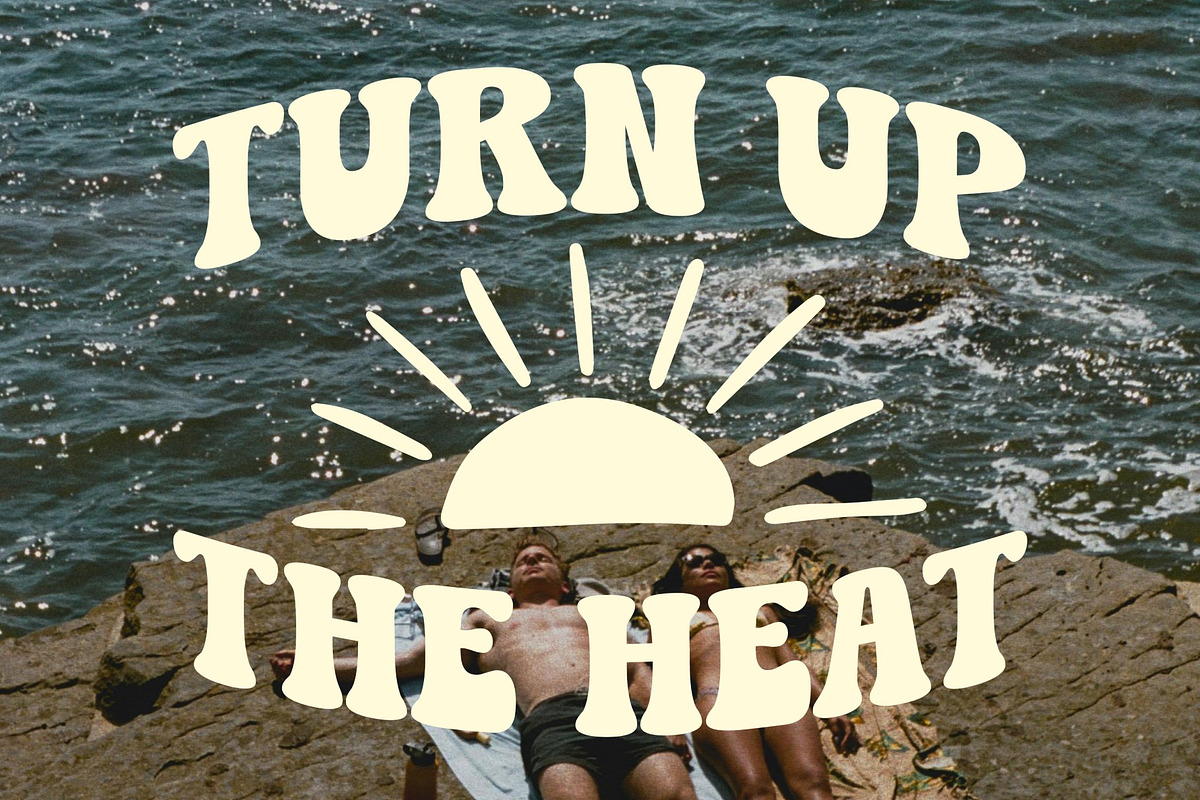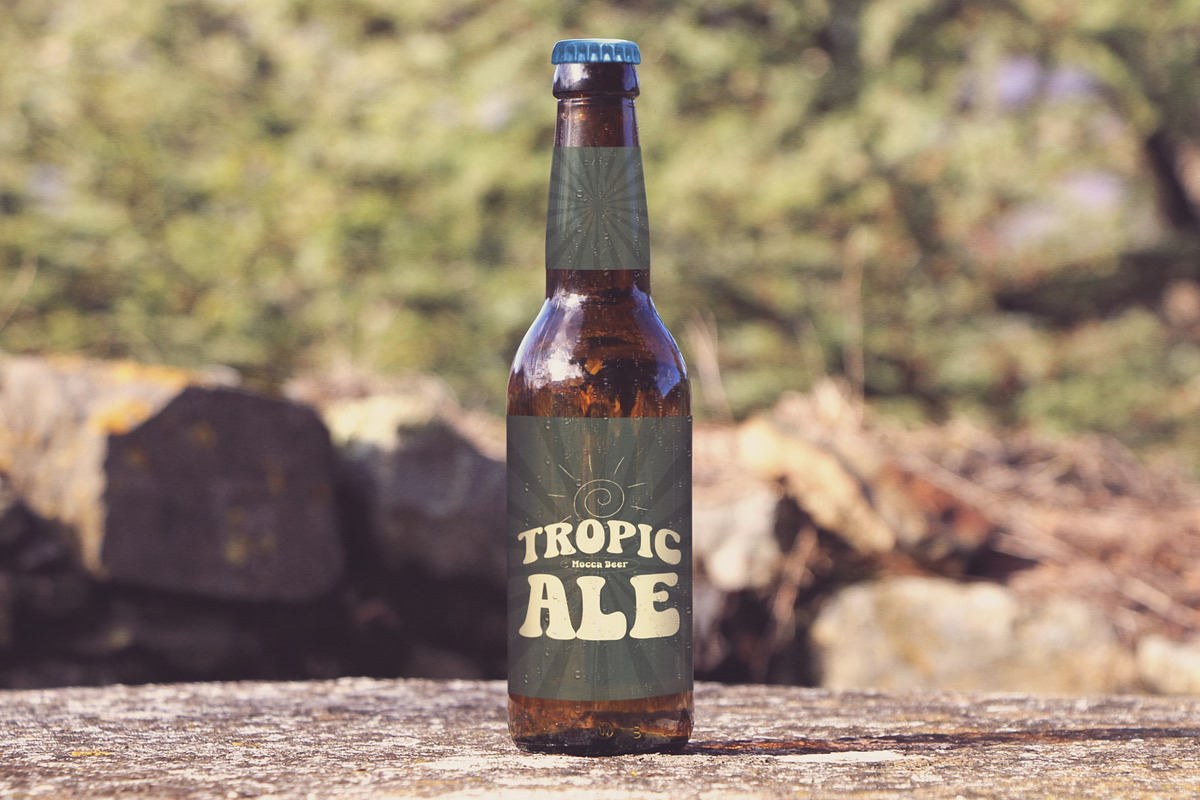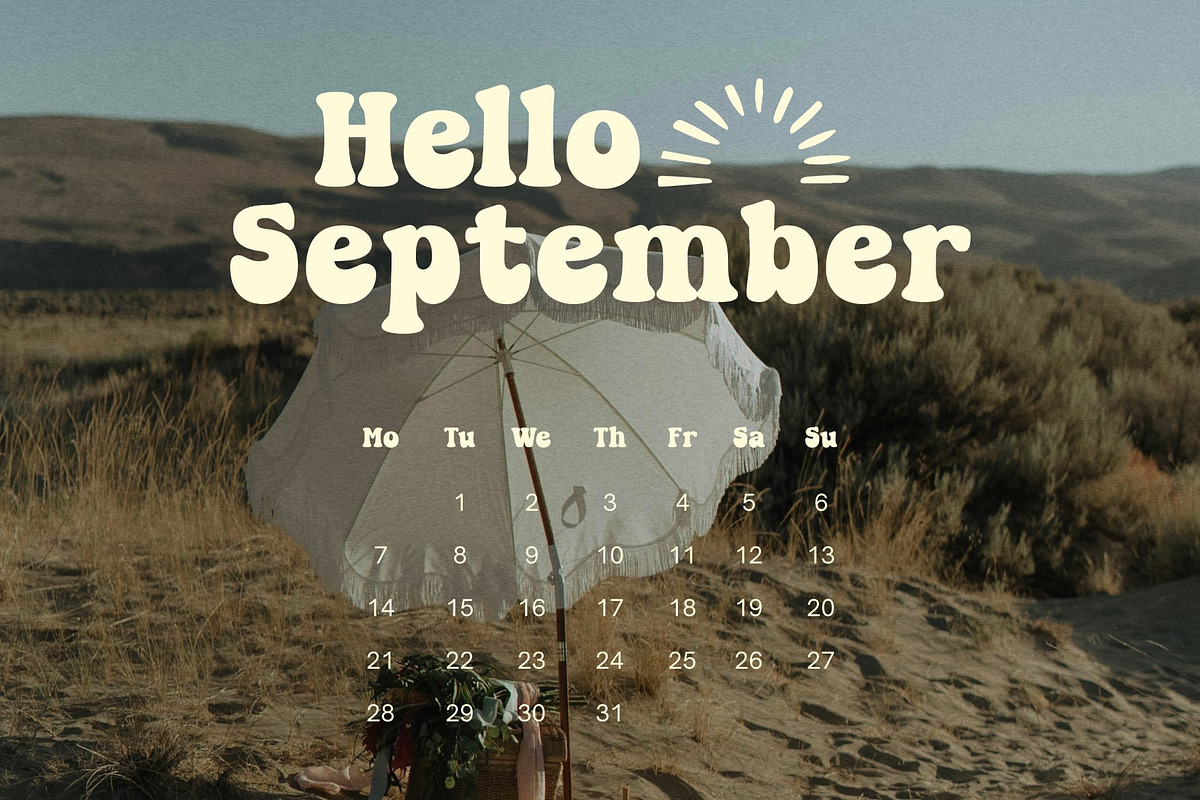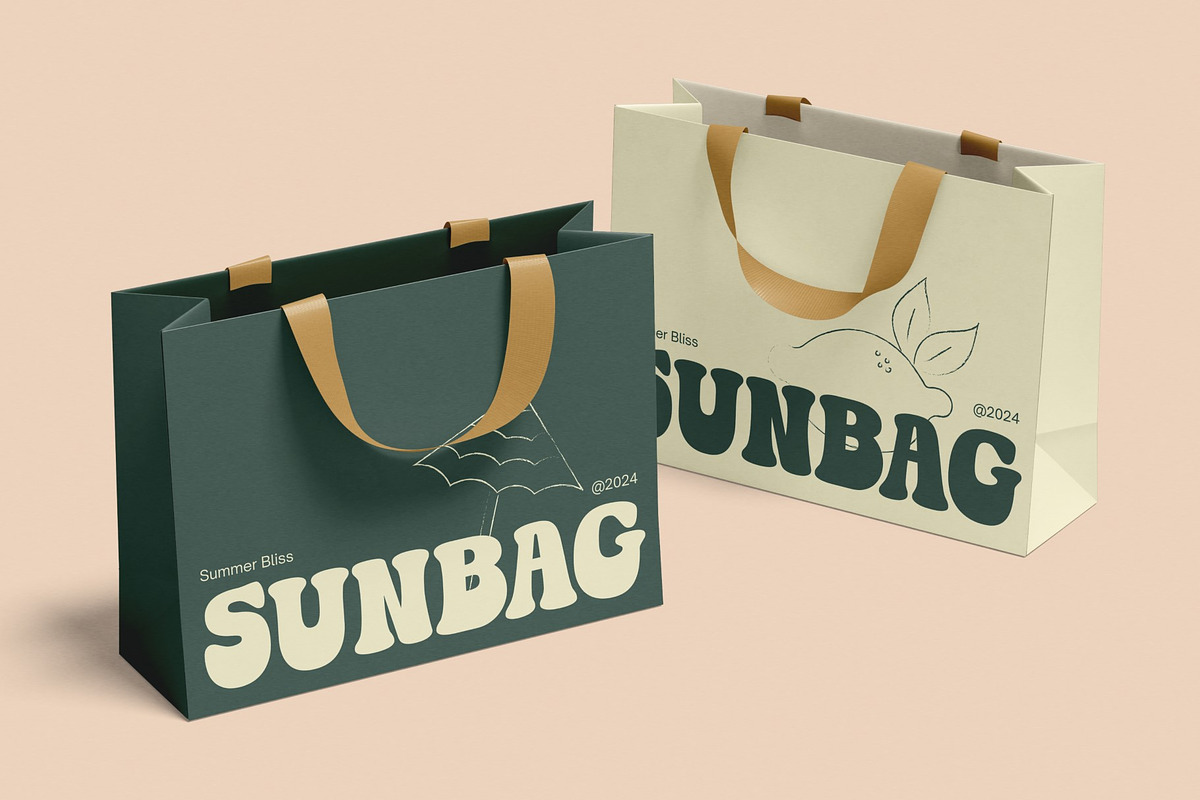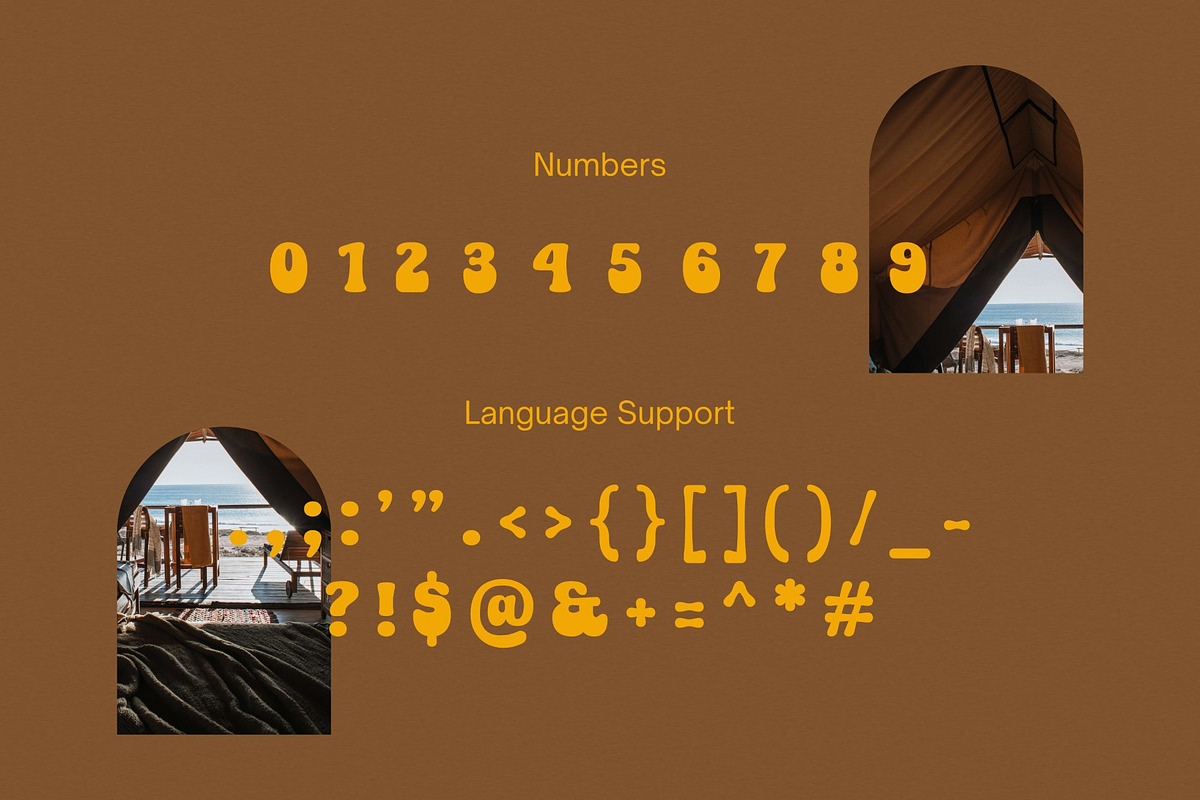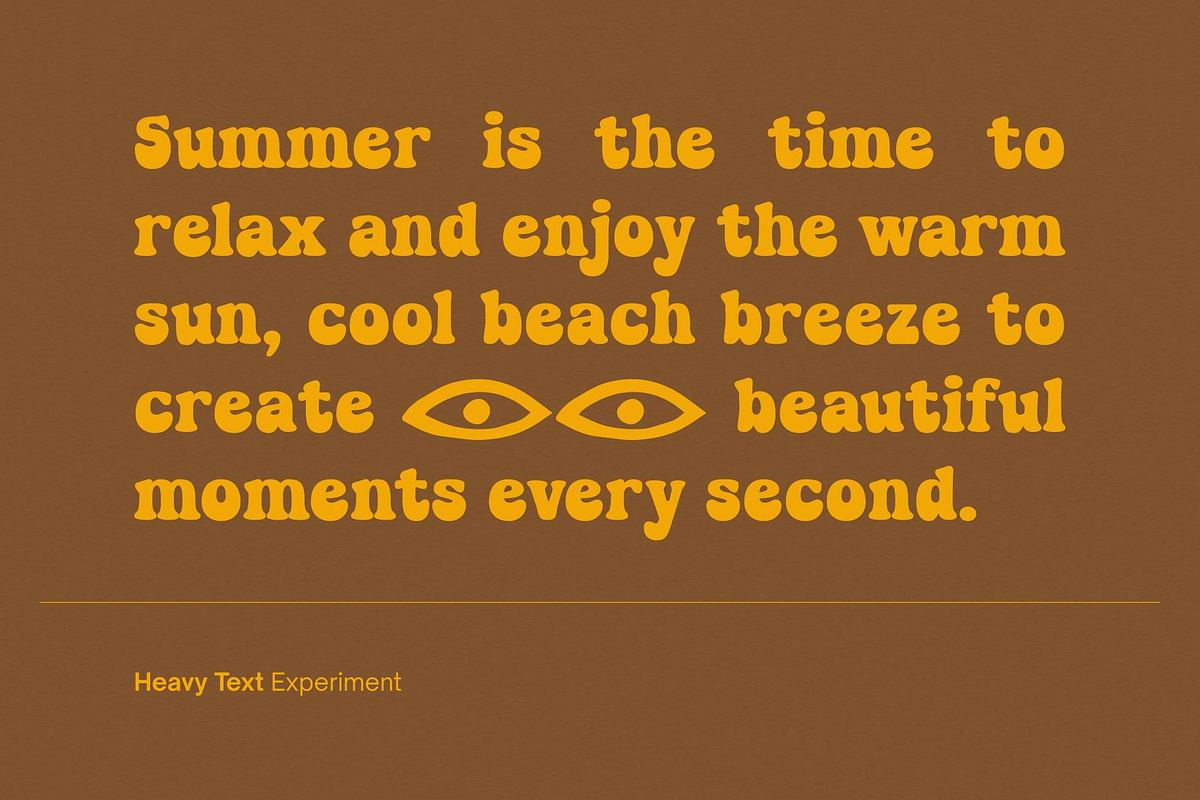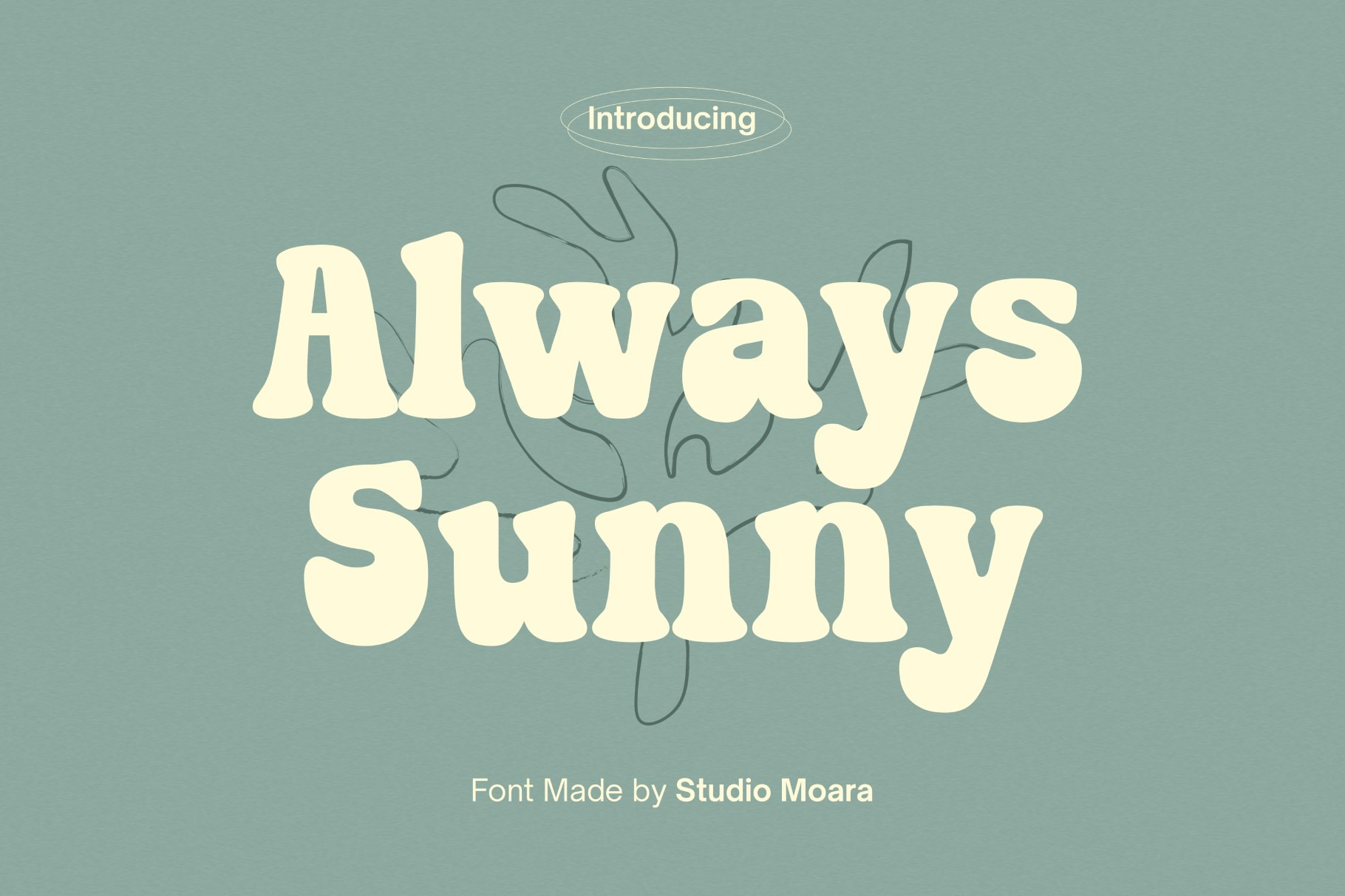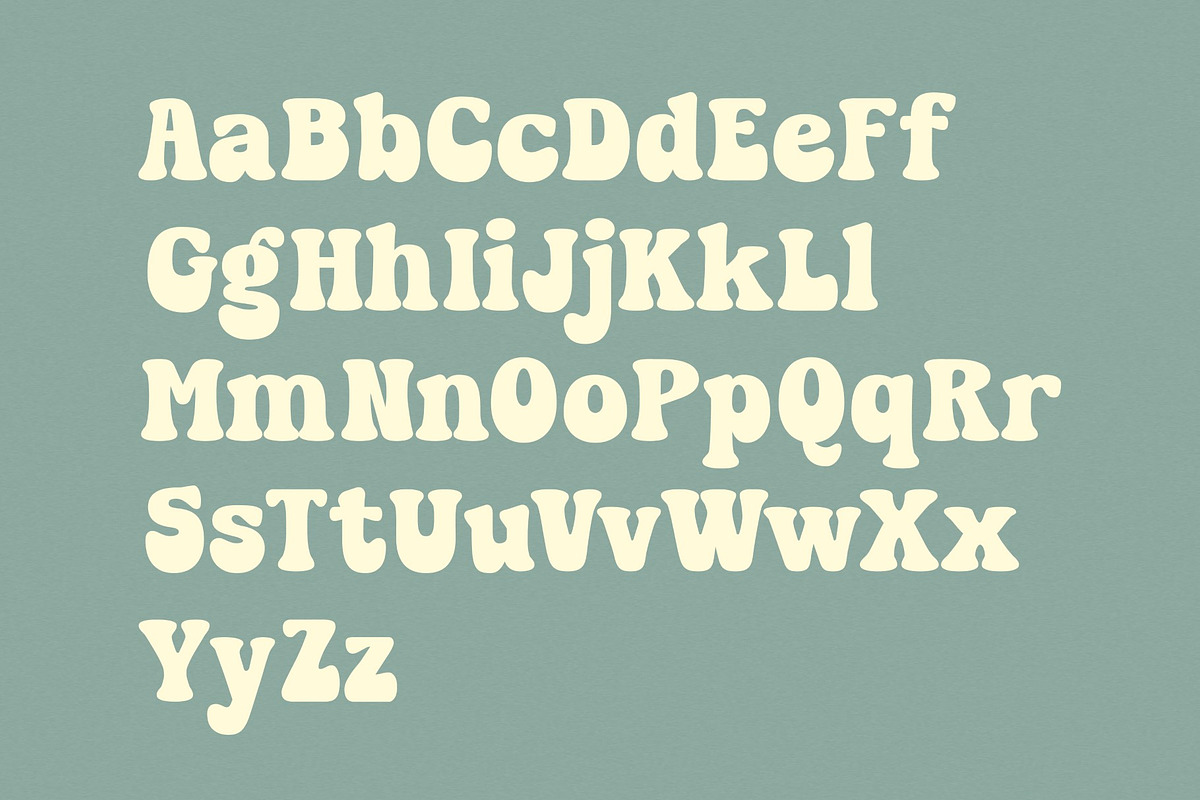
Always Sunny - Groovy Display Font
Bring sunshine to your designs with Always Sunny, the groovy display font that radiates warmth and positivity. This font's playful letterforms and sunny disposition add a touch of joy to any project. Ideal for posters, packaging, and branding, Always Sunny infuses your designs with a carefree spirit reminiscent of sun-soaked days. Its lively, retro-inspired characters create a vibrant visual experience, making it the perfect choice to capture attention and spread the sunny vibes across your creative endeavors.